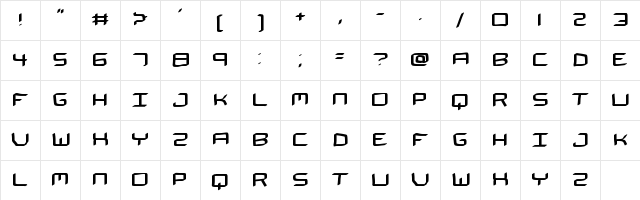
THE SPACEMAN Medium Free Font
THE SPACEMAN Medium
Design Context for THE SPACEMAN
THE SPACEMAN is a composed and adaptable typeface that performs quietly and consistently across a wide range of design contexts.
Pro Tip: Use THE SPACEMAN in both headline and body roles to test its range before committing to a single application.